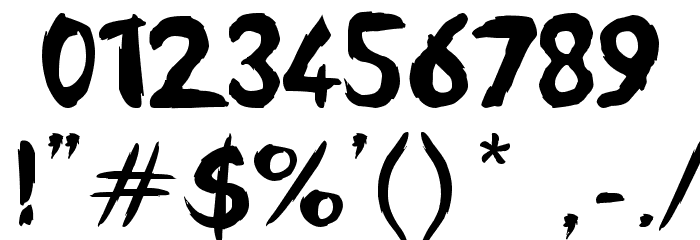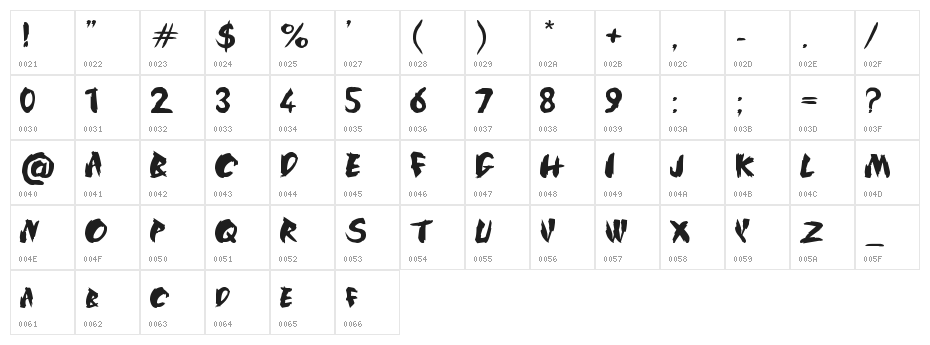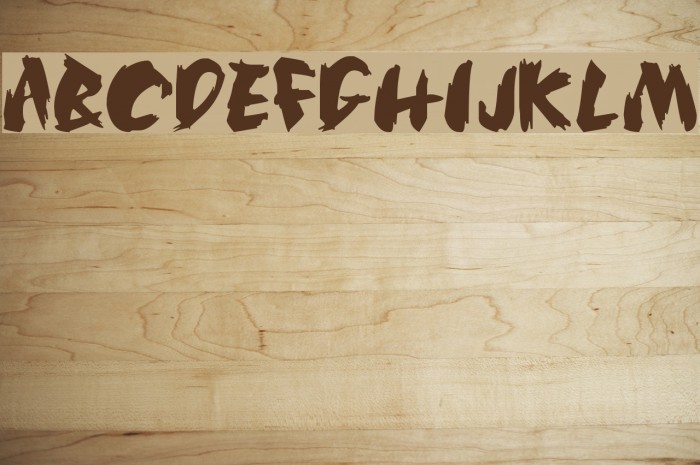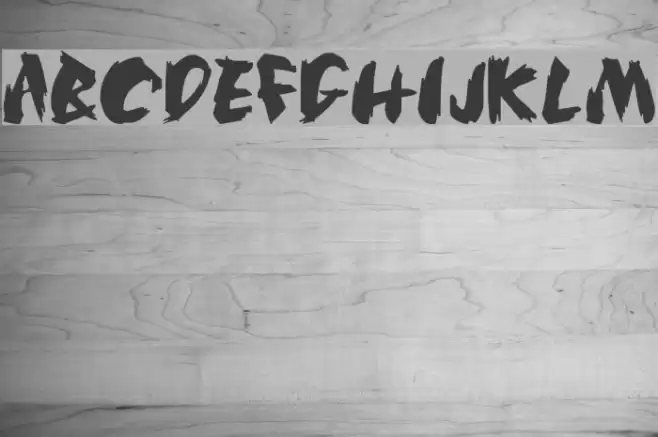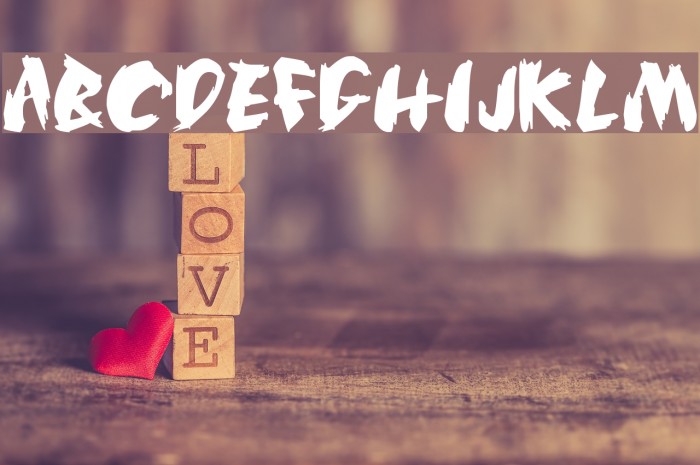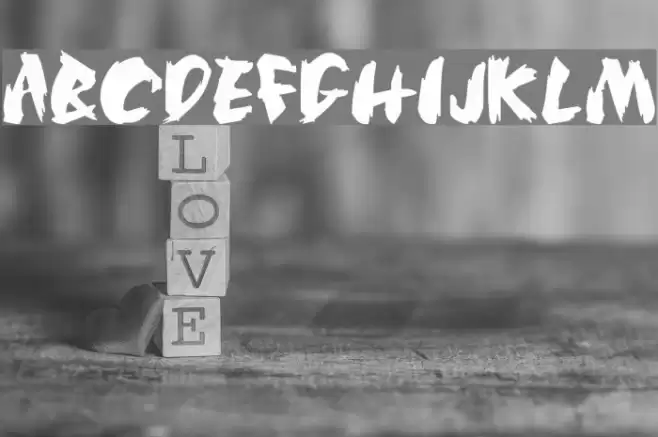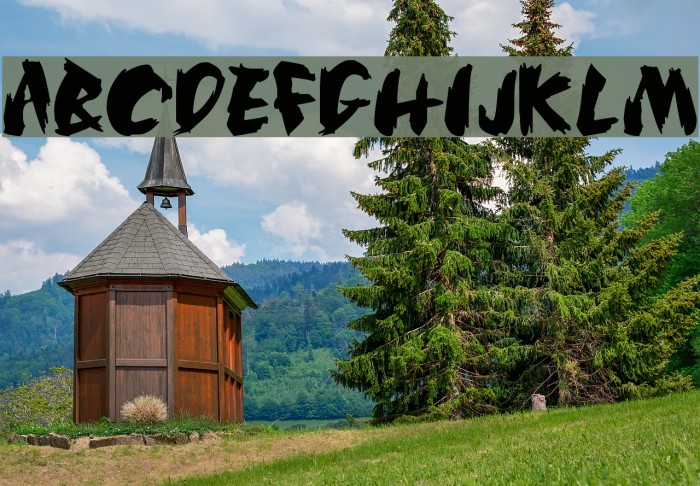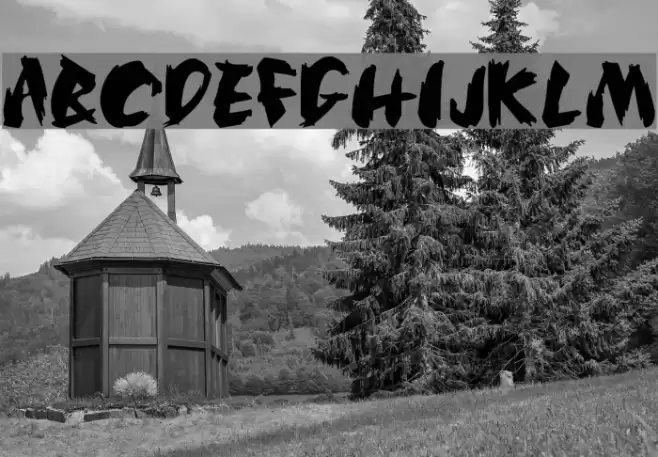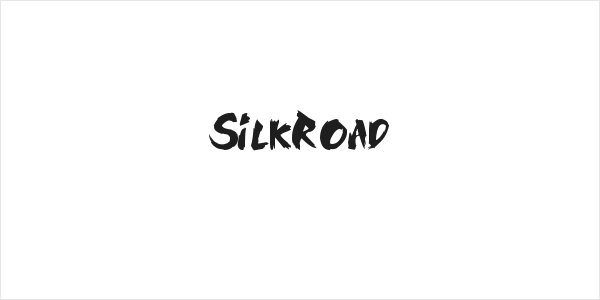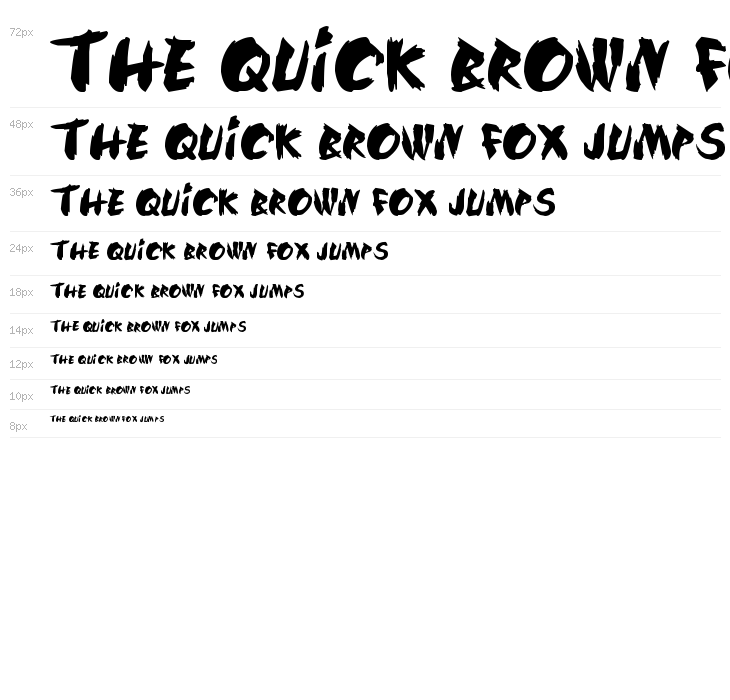
SilkRoad Font
SilkRoad Description
This font exhibits a bold and dynamic brush style, characterized by its thick, energetic strokes and slightly irregular edges, giving it a handcrafted appearance. The uppercase and lowercase letters maintain a consistent flow, with a sense of movement and spontaneity. The numbers and special characters follow the same expressive style, making them stand out with a unique flair. This font is ideal for projects that require a strong visual impact, such as posters, branding, or artistic designs. Its boldness and distinctive character make it suitable for conveying creativity and boldness.
| Proposed Projects | Ideal for posters, branding, artistic designs, and any project needing a strong visual impact. |